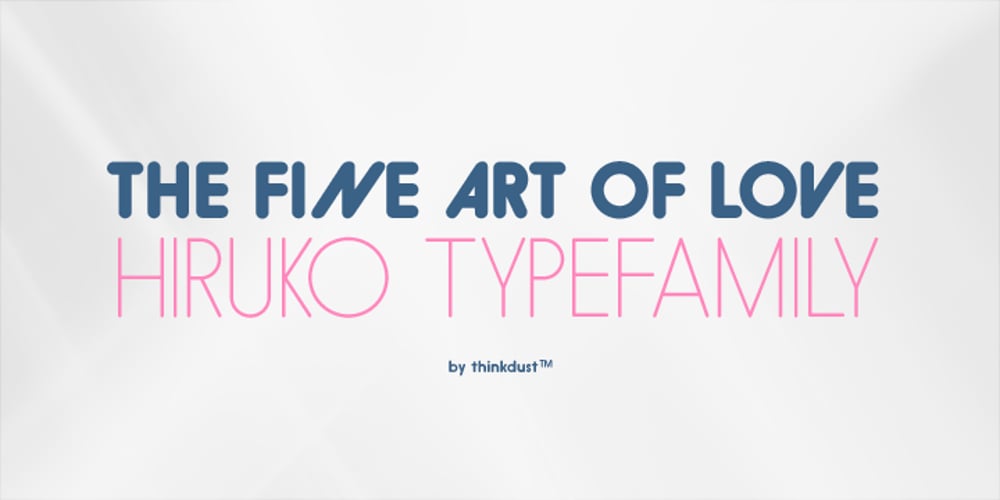
Hiruko Font Family was designed by Alex Haigh and published by HyperFluro. Hiruko contains 38 styles and family package options. With 15 different styles and support for all sorts of languages, Hiruko is the open and easy sort of font that can be used in almost any situation, as long as you want your message to be readable. Smooth, simple and clear, Hiruko takes inspiration from both Swiss and Japanese styles, focusing on minimalism and function within its form, the idea that less is more and the careful, exquisite craftsmanship that makes such minor changes have a big impact. From extra-light to thick, black weights, in italics or in outlines, Hiruko can be used to convey messages in such a variety of styles that you’ll never be disappointed. Alternatively if you’re looking for something a little more comprehensive, why not check out the follow up to this family Hiruko Pro.